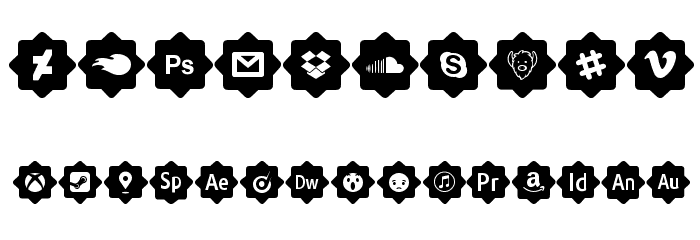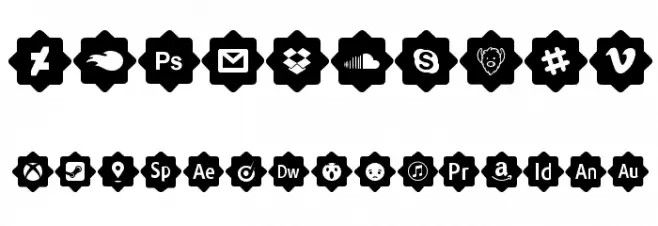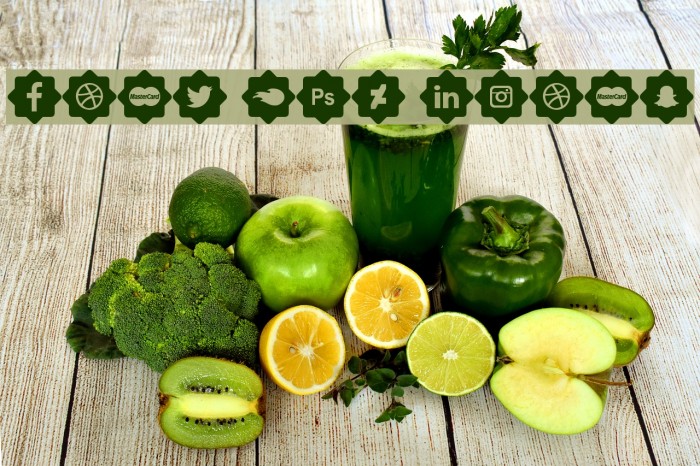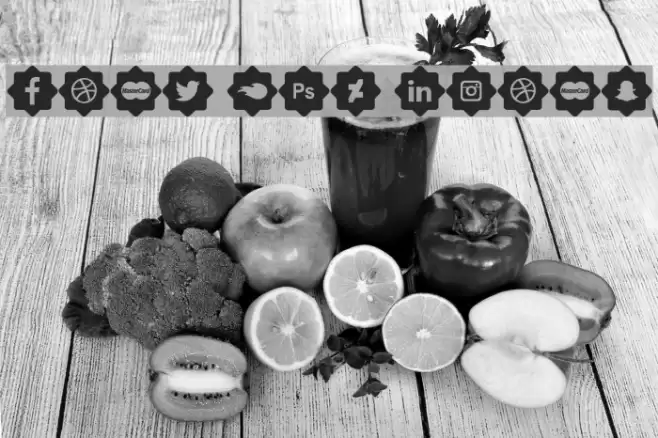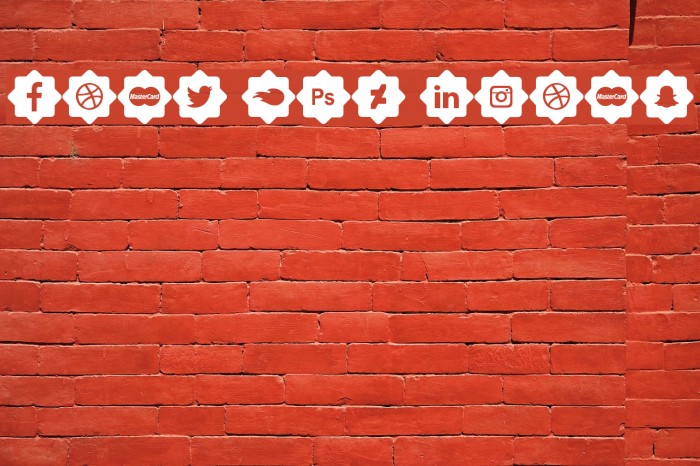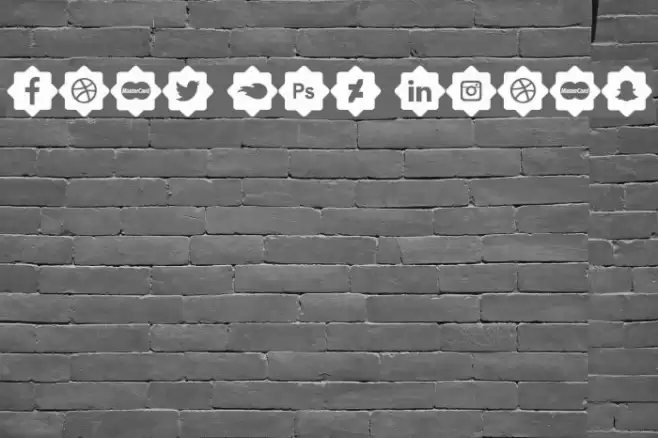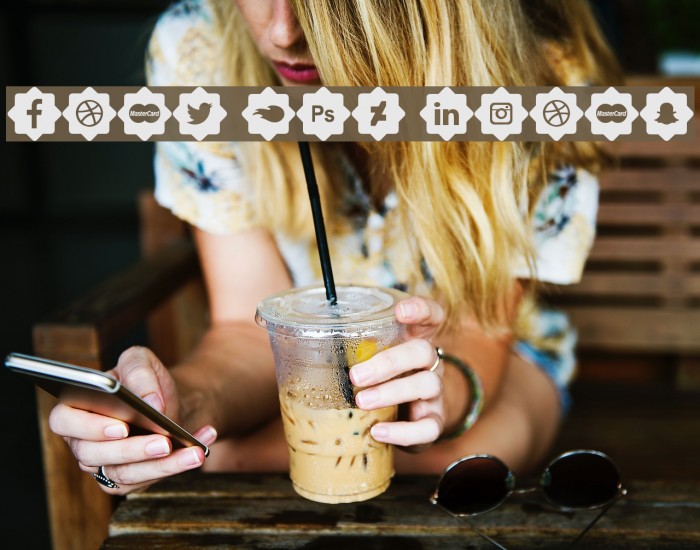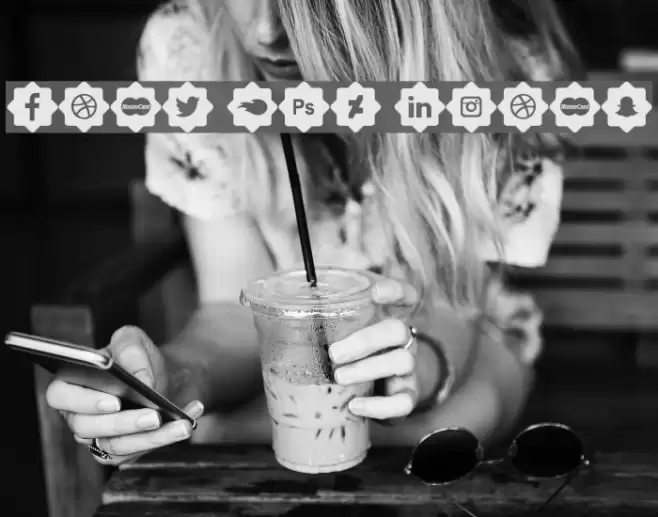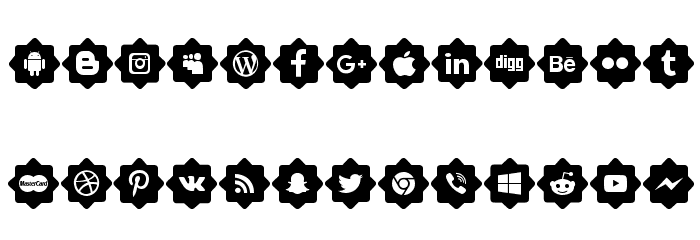
font 120 icons Font
font 120 icons Description
A collection of bold, solid black icons representing various brands, apps, and social media platforms, each enclosed within a gear-shaped badge. The icons are highly simplified and monochromatic, ensuring clear recognition even at small sizes.
Bold, gear-shaped icon set for brands and apps from Uncategorized fonts.
- Proposed Projects: App interfaces, website footers, social media links, tech presentations, icon packs.
- Overall Style: Modern, Decorative
- Use Case: Icons, UI elements, branding, navigation menus